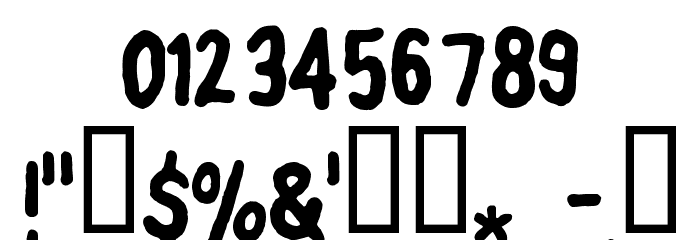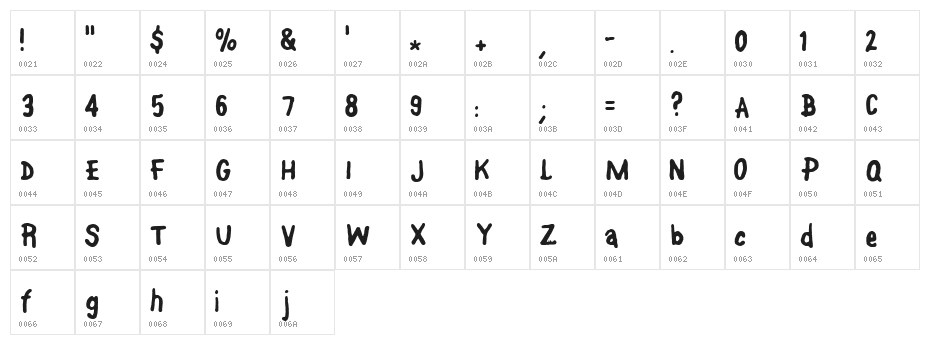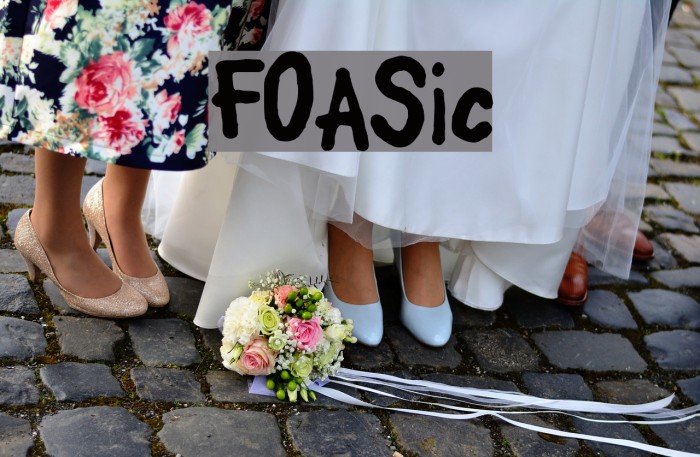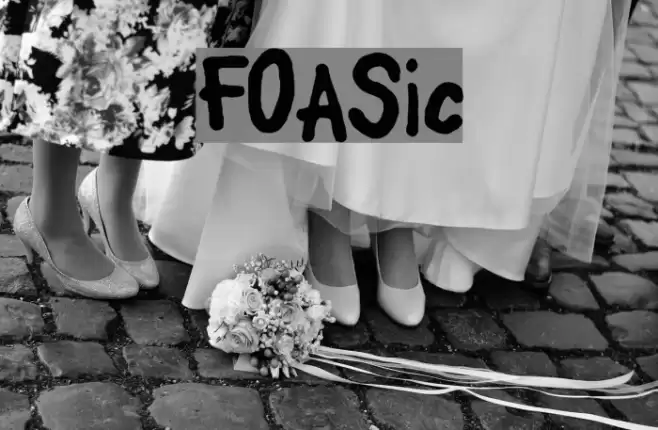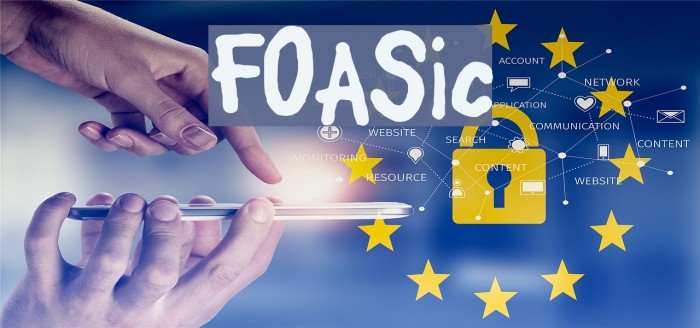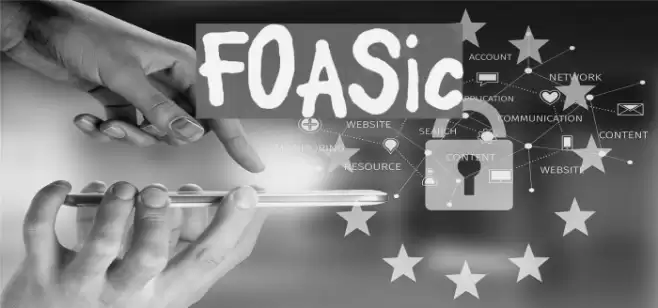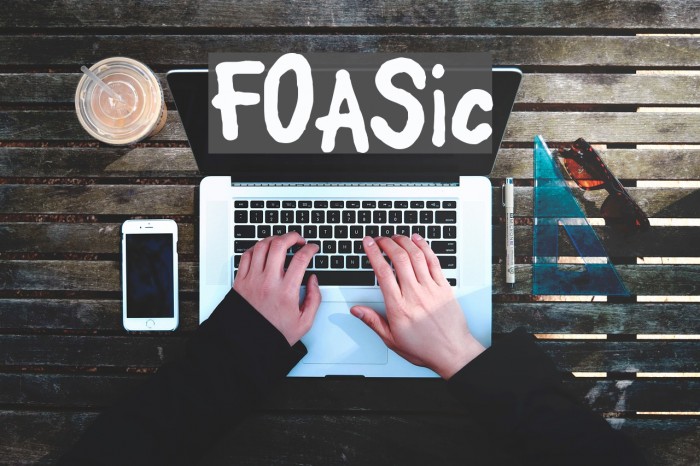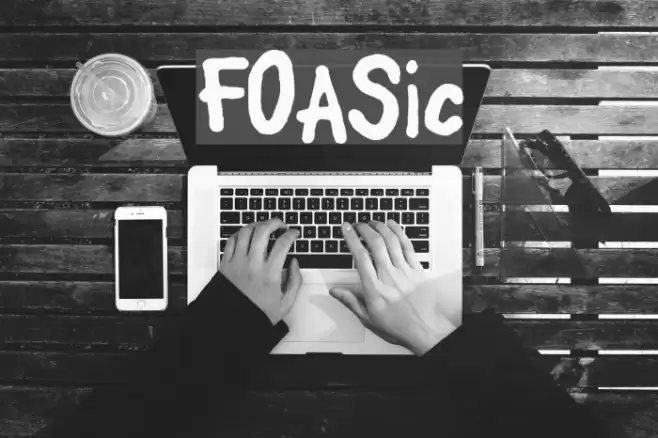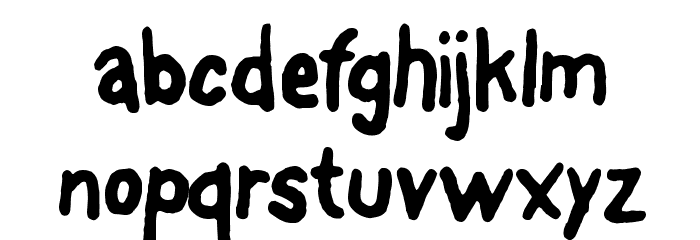
FontOnAStick Font
FontOnAStick Description
This font features a playful and bold handwritten style with a slightly irregular and organic appearance. The characters are thick and rounded, giving a friendly and approachable feel. The uppercase and lowercase letters maintain a consistent style, with the lowercase letters slightly smaller but equally bold. Numbers and special characters follow the same design, ensuring uniformity across all glyphs. The font's informal and whimsical nature makes it suitable for creative and casual applications, adding a touch of personality to any project.
| Use Case | Headlines, Logos, Casual Text |
| Proposed Projects | Ideal for children's books, greeting cards, playful branding, and casual invitations. |